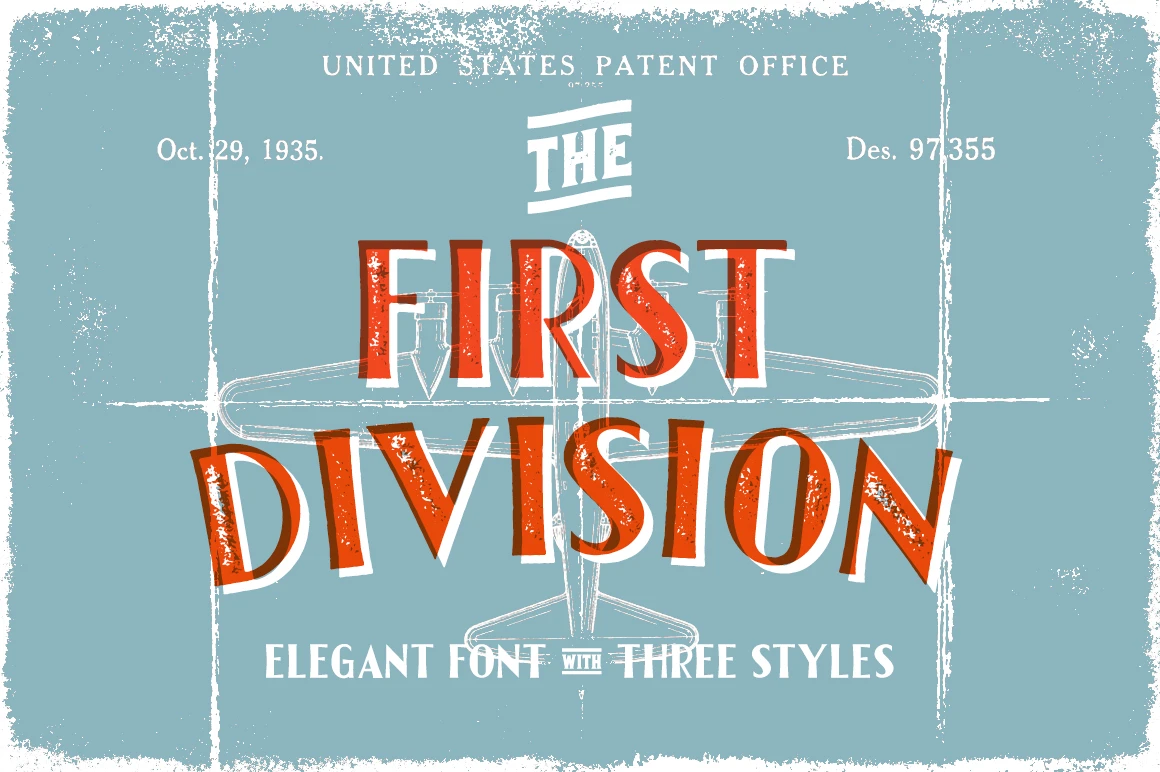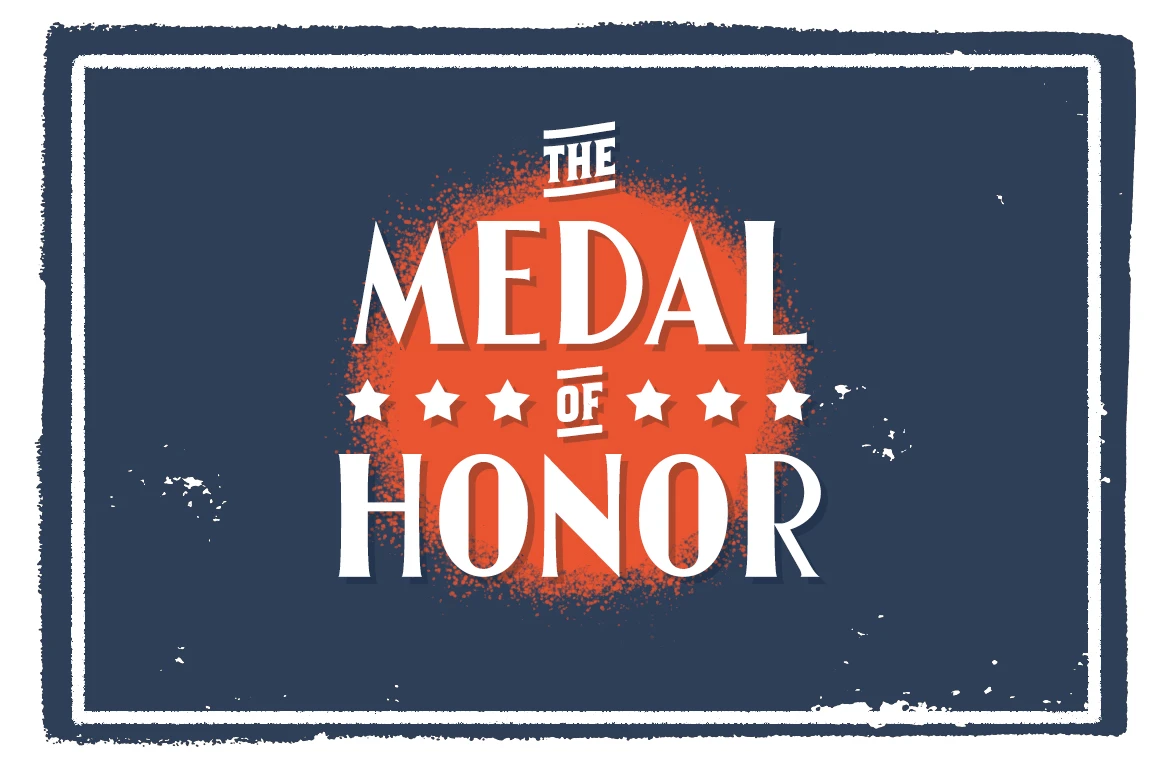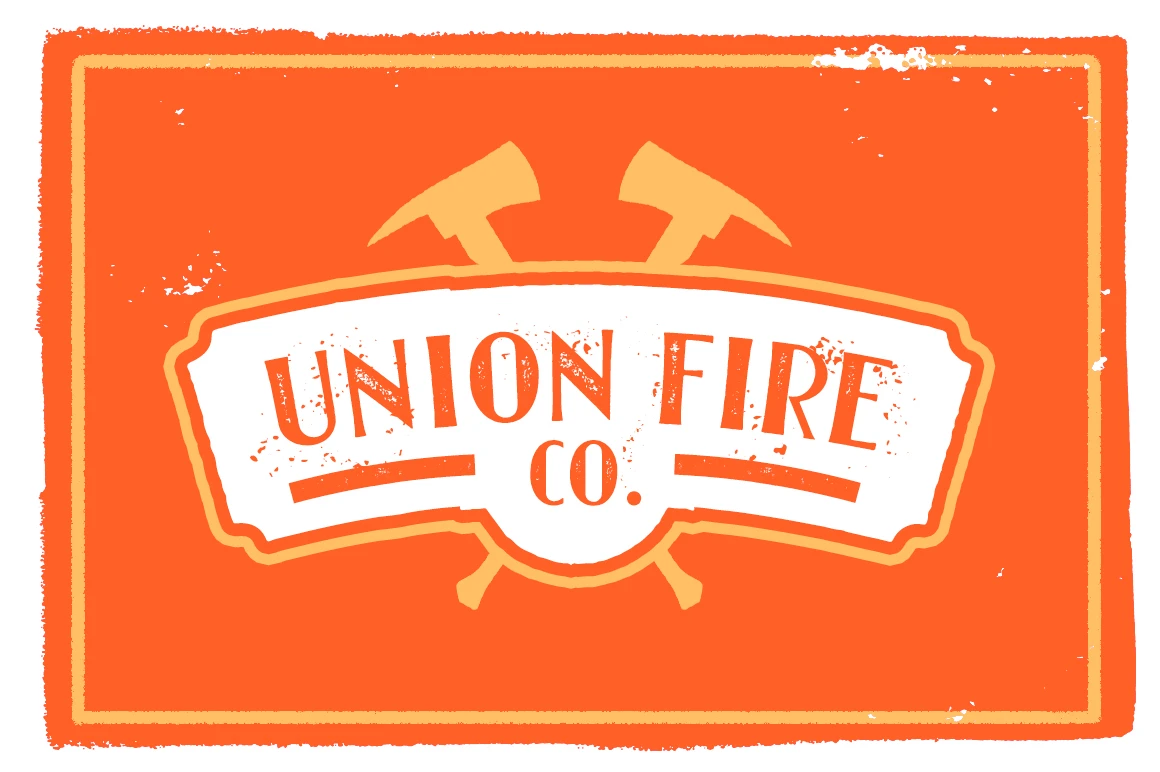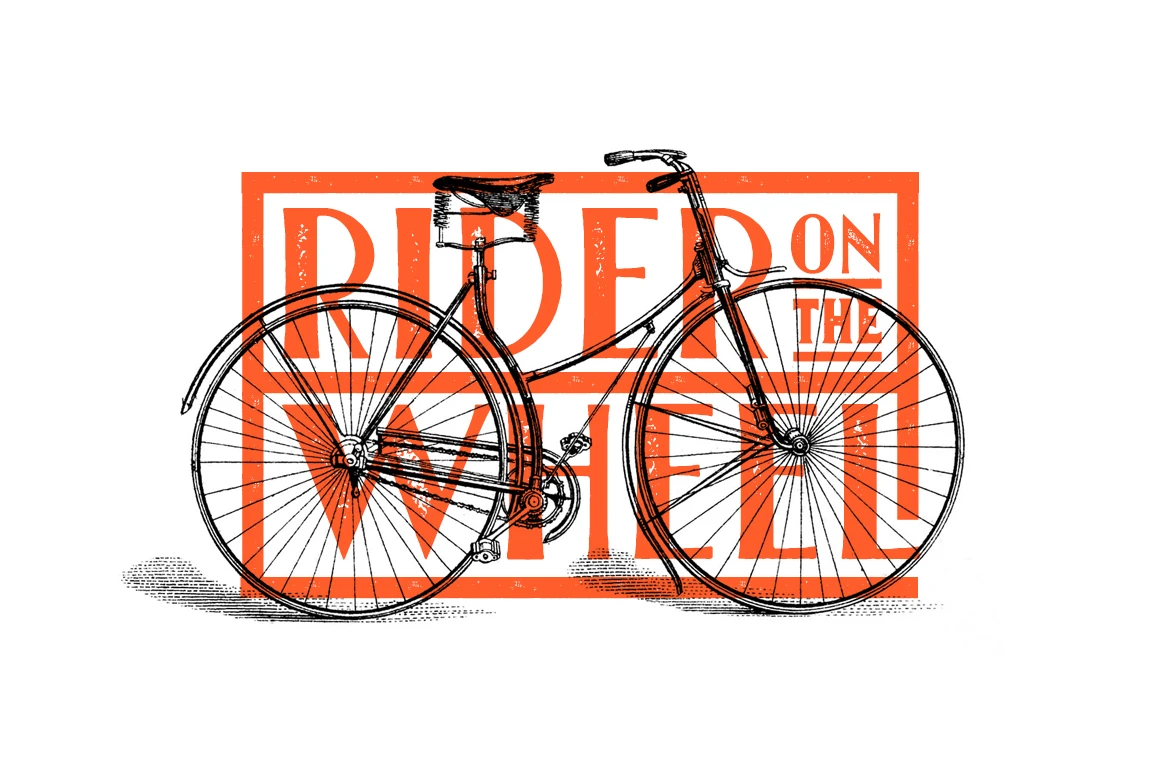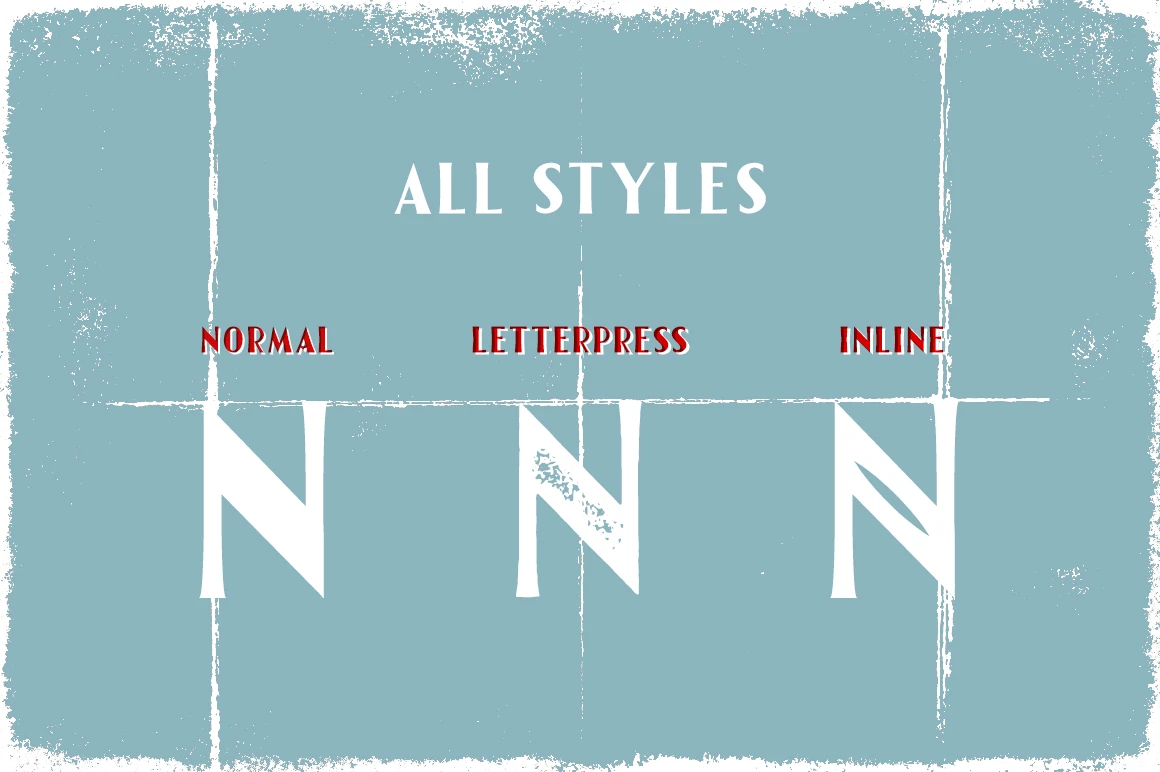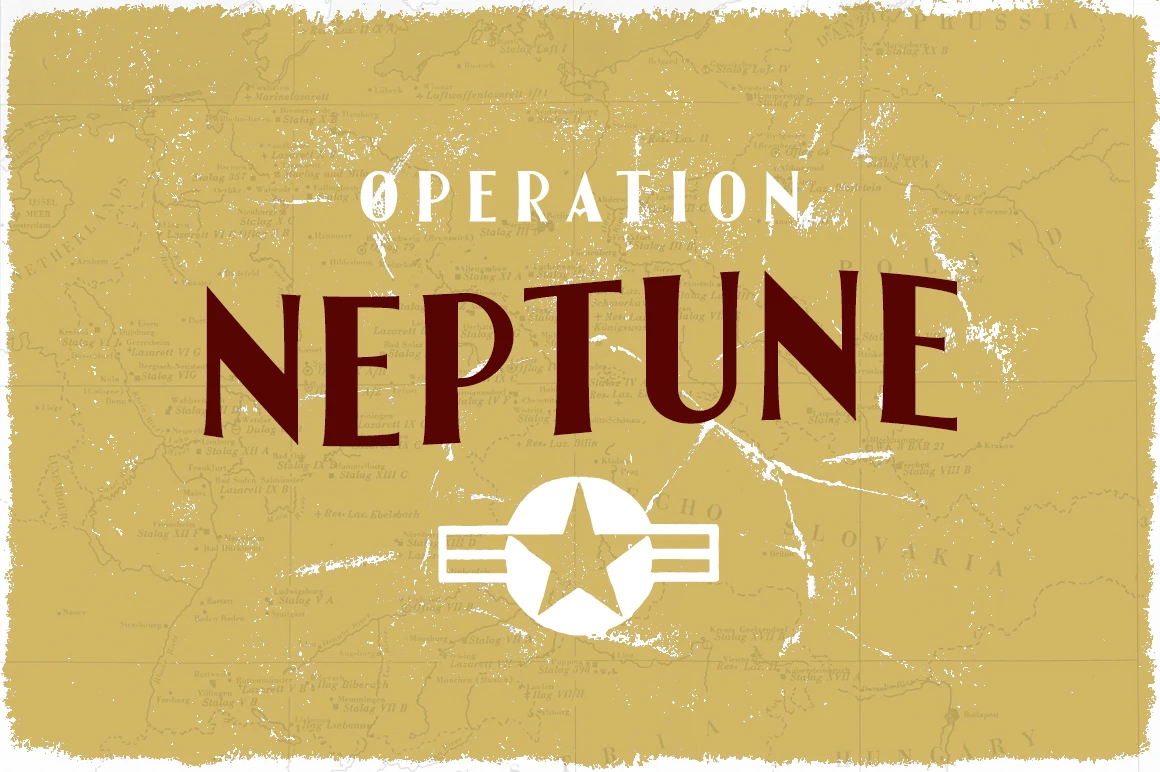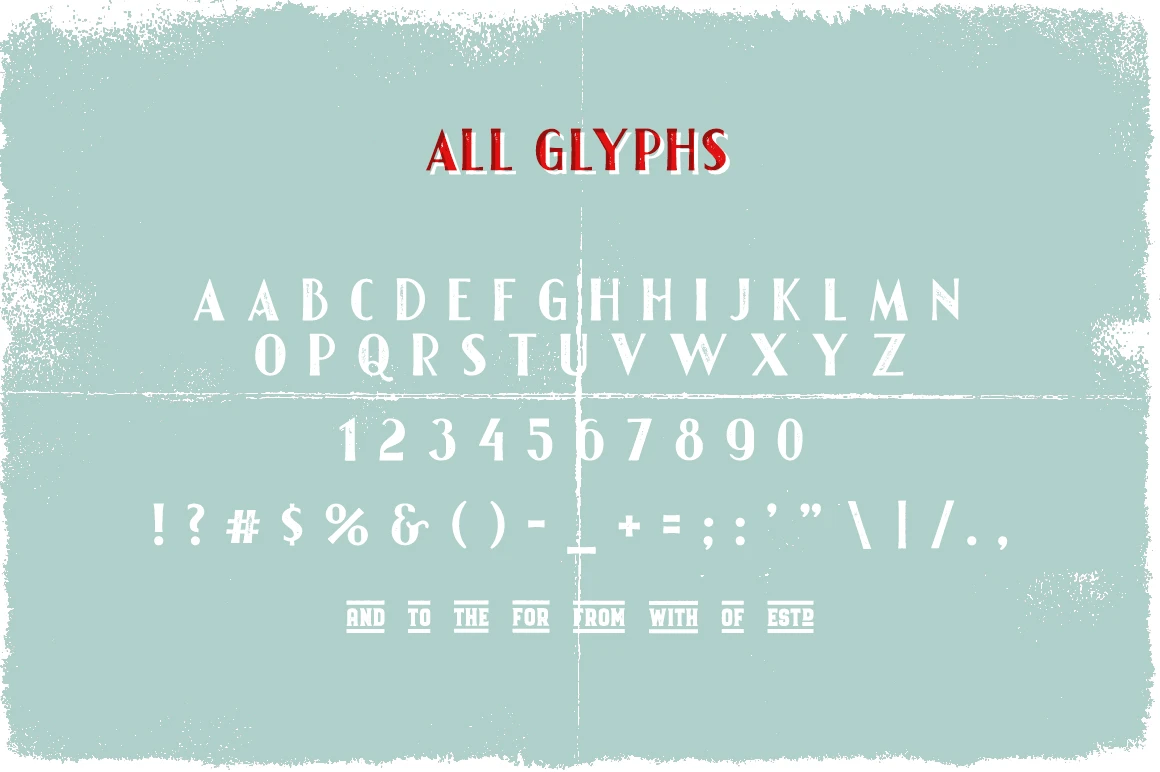
First Division Font Family
The First Division is an elegant vintage font inspired by typography from the WWII era. Reflects the style seen in markings on United States Air Force planes. Designed for bold headers, signage, and standout logos. A strong choice for advertising, apparel design, labels, posters, and packaging. Built to bring a sense of history and strength to any visual project.
• Discretionary Ligatures
Styles included • Inline • Letterpress • Regular